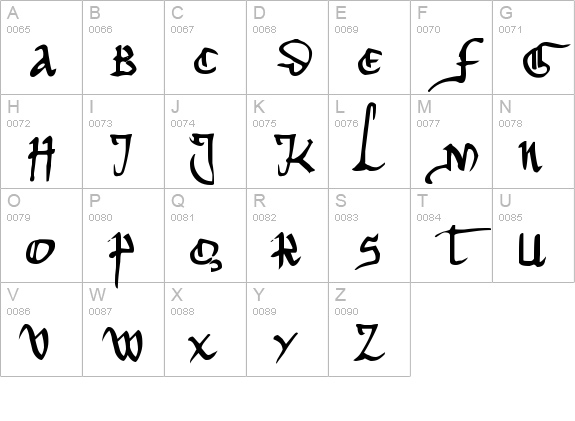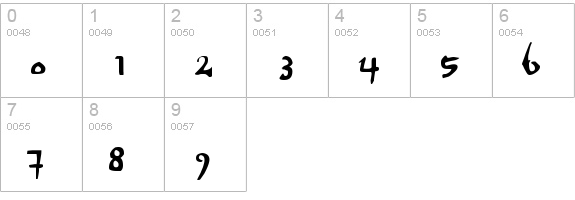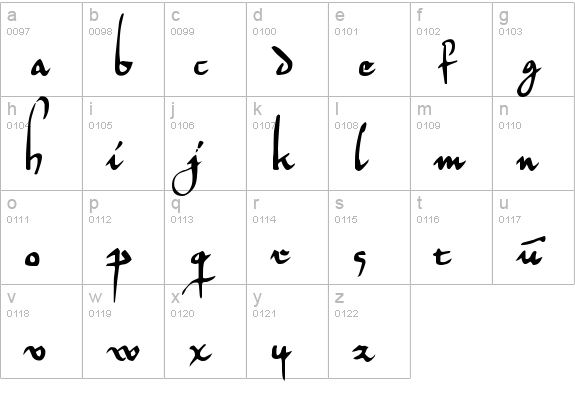
Herman Decanus AH font is a stunning display typeface that exudes elegance and sophistication. Its intricate details and timeless design make it a perfect choice for projects that require a touch of class. The font features ornate serifs and graceful curves, giving it a unique and refined look. What sets Herman Decanus AH font apart is that it is not only visually appealing but also versatile and easy to read. Whether used for invitations, branding, or editorial design, this font will surely make a statement. Best of all, Herman Decanus AH font is available for free download at FontsMarket.com. So, don't miss out on the opportunity to add this exquisite font to your collection and elevate your designs to new heights.